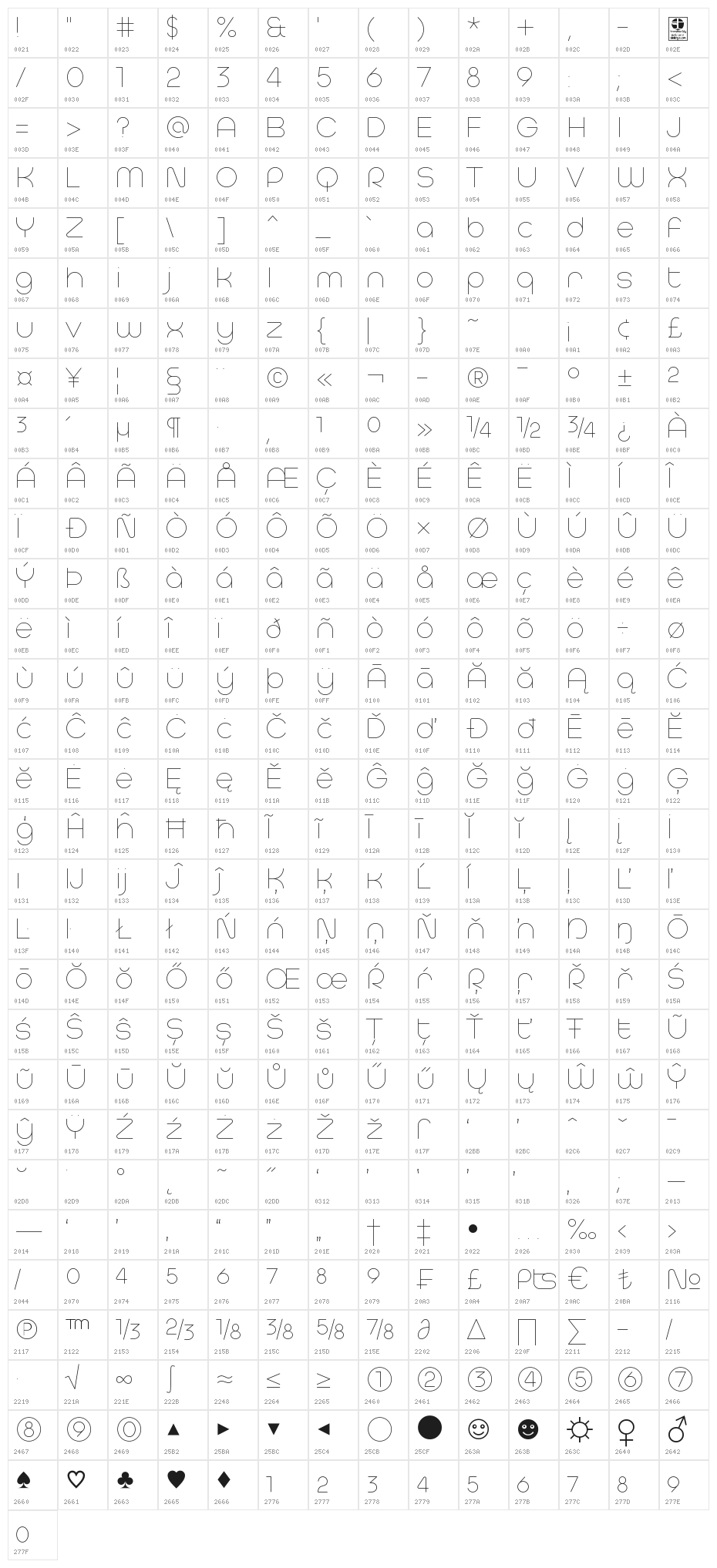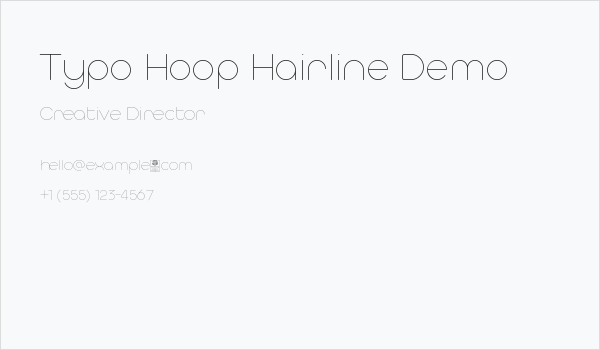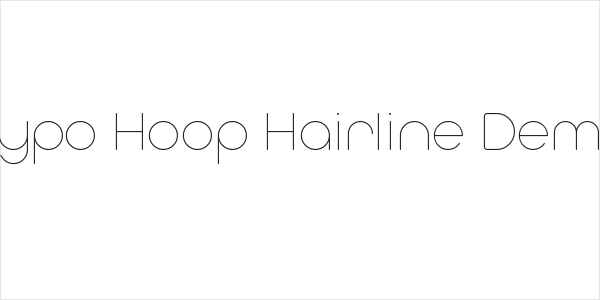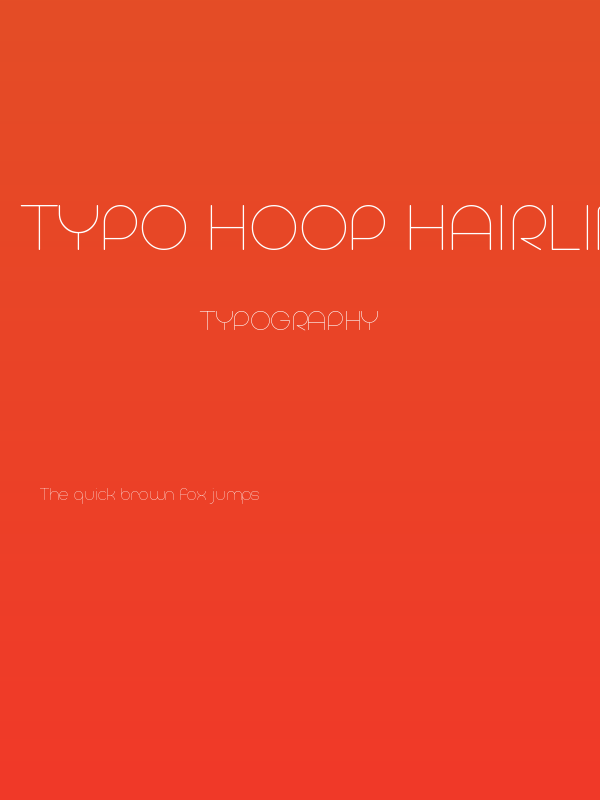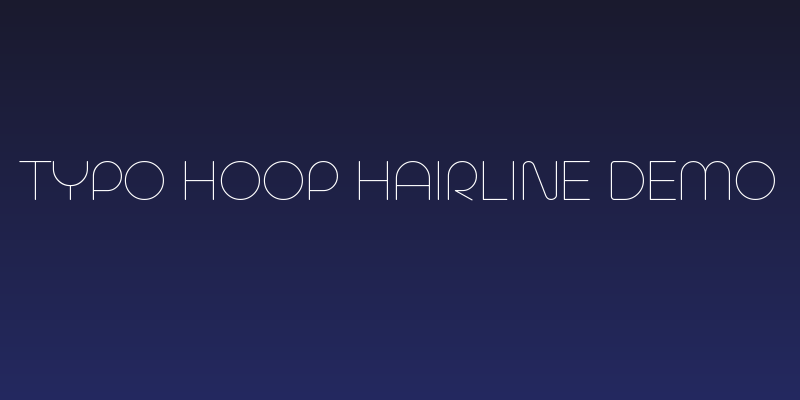
Typo Hoop Hairline Demo Font
Typo Hoop Hairline Demo Description
This font features a minimalist and geometric design, characterized by thin, consistent strokes that create a clean and modern appearance. The letters are constructed with precise lines and curves, giving it a futuristic and sleek look. Its uniformity and simplicity make it highly legible, even at smaller sizes. The font includes a full set of uppercase and lowercase letters, numerals, and a variety of special characters, making it versatile for various design needs. Its hairline weight adds an elegant touch, suitable for contemporary and sophisticated projects.
| Proposed Projects | Ideal for branding, tech-related designs, modern websites, and minimalist posters. |